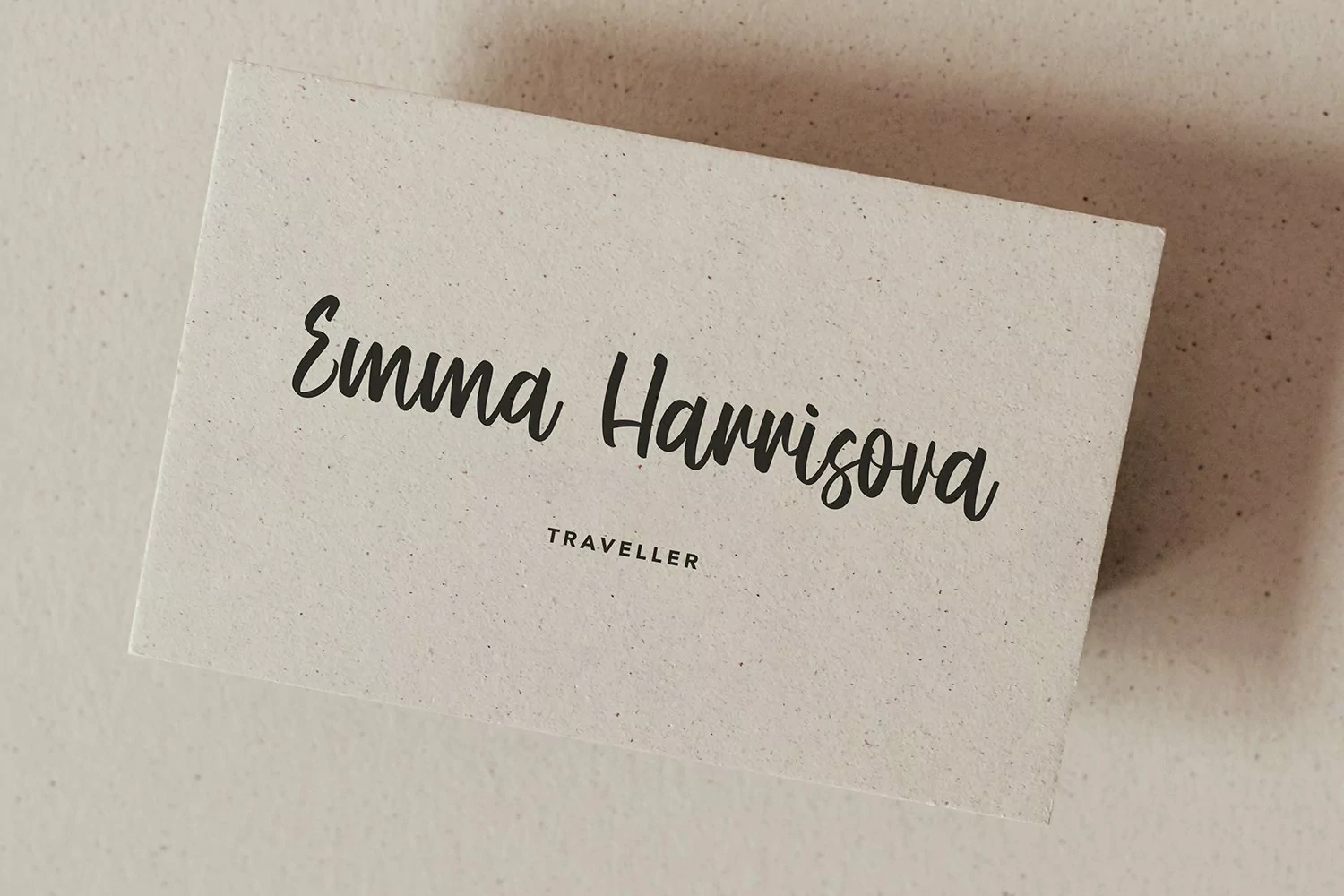
Web Font Georgette - Beautiful Script Font that contain lowercase, uppercase, symbol, and also support multi language. There’s a lot ligatures in this font. This Font also comes with ligatures, alternates and many more. this font suitable for fashion, branding, catalog and other design what you want.
Georgette